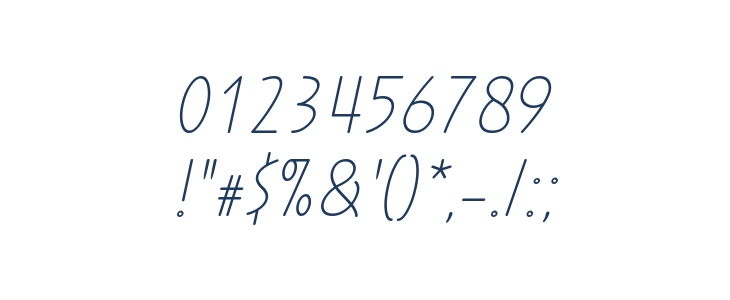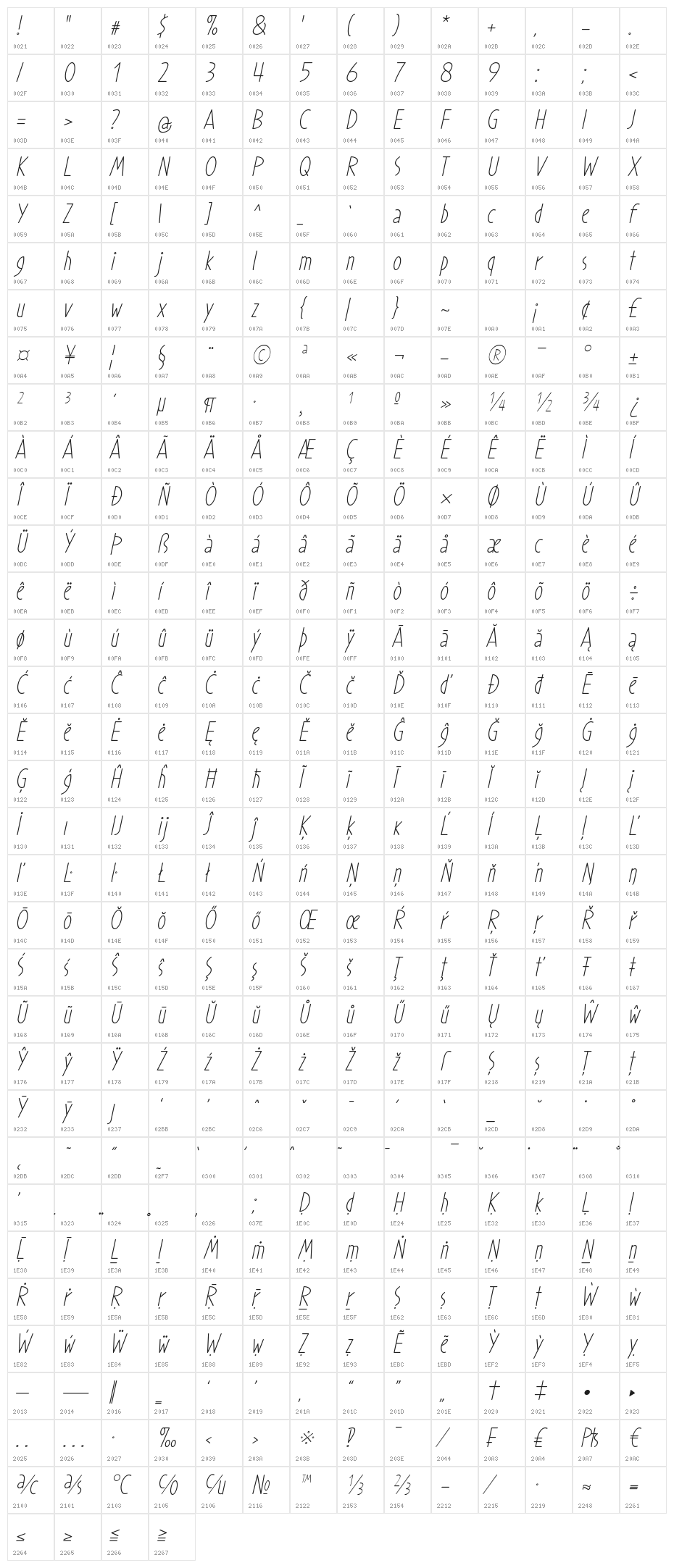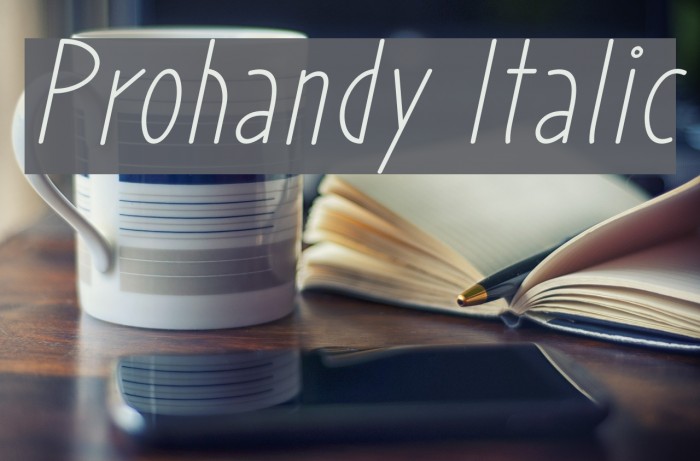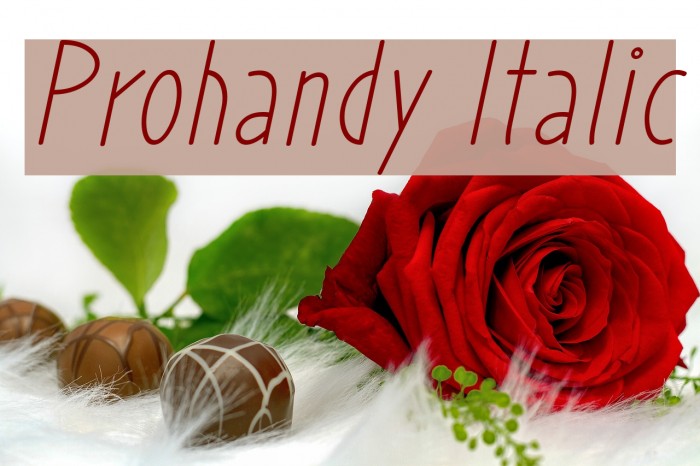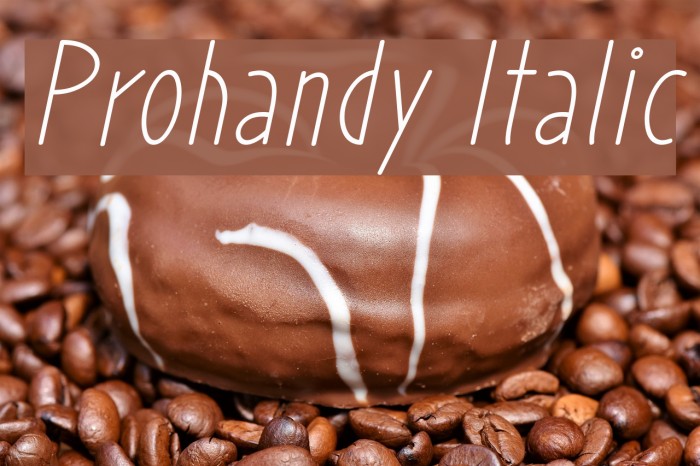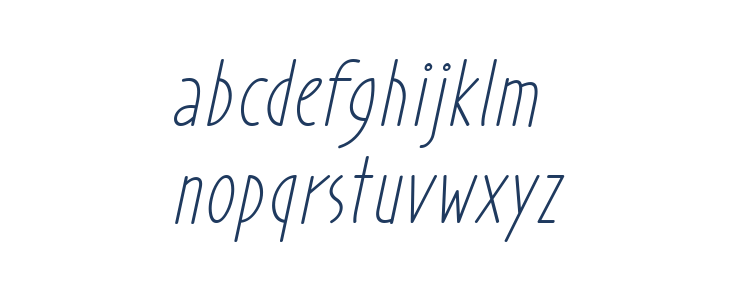
Prohandy Italic Font
Prohandy Italic Description
This font features a sleek, handwritten style with a slight slant, giving it an italic appearance. The characters are elongated and have a consistent stroke width, providing a clean and modern look. The uppercase letters are tall and narrow, while the lowercase letters maintain a similar height, creating a harmonious balance. The numerals are distinct and easy to read, and the special characters blend seamlessly with the overall design. This font's elegant and flowing style makes it suitable for a variety of creative applications.